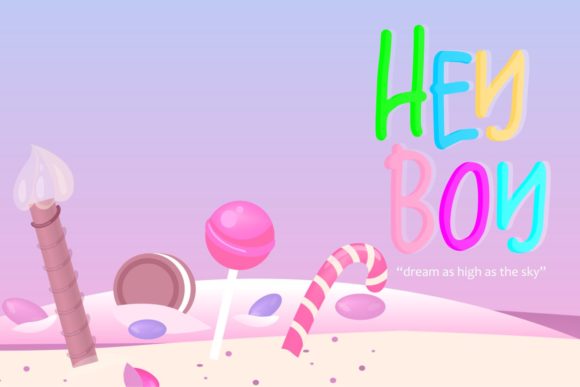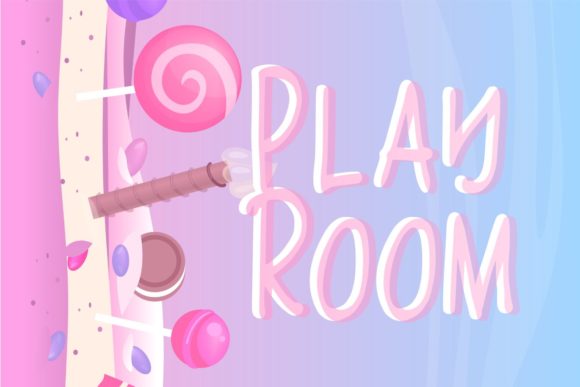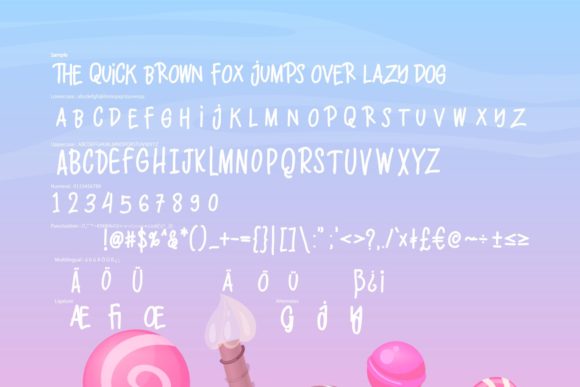
HomeScript FontsLolipop Font Script Fonts Lolipop Font FacebookXPinterestWhatsApp Lolipop Font Poster 2 Lolipop Font Poster 3 Lolipop Font Poster 4 Lolipop Font Poster 5 Lolipop Font Poster 6 About Lolipop Font Lolipop is a fun & playful typeface featuring simple style. It is perfectly suited for a wide variety of projects! DOWNLOAD NOW People also explored Spring Valey Font Marsshale Aesthetic Font Brianetta Font Little Crawls Font Gosh Darn Trouble Maker Font Bonistha Daily Font Pom Pom Font Madein Script Gardien Font 310 0 TagsLolipop Font Previous articleHumble FontNext articlePouri Font LEAVE A REPLY Cancel reply Comment: Please enter your comment! Name:* Please enter your name here Email:* You have entered an incorrect email address! Please enter your email address here Website: Save my name, email, and website in this browser for the next time I comment. Personal Use Free Ailand Personal Use Free Read more about this font Cheque Personal Use Free Read more about this font Satori Personal Use Free Read more about this font Boronic Personal Use Free Read more about this font BLOG The 10 Best Handwriting Fonts to Add Personality to Your Designs 10 of the Best Handwriting Fonts for Adding Personality to Your Designs There will undoubtedly be no other better choice than handwriting fonts to give... Where to Buy American Fonts Online in 2024 Free vs Paid Fonts: Why Investing in Premium Fonts Is Worth It Fonts That Capture the Spirit of New York City